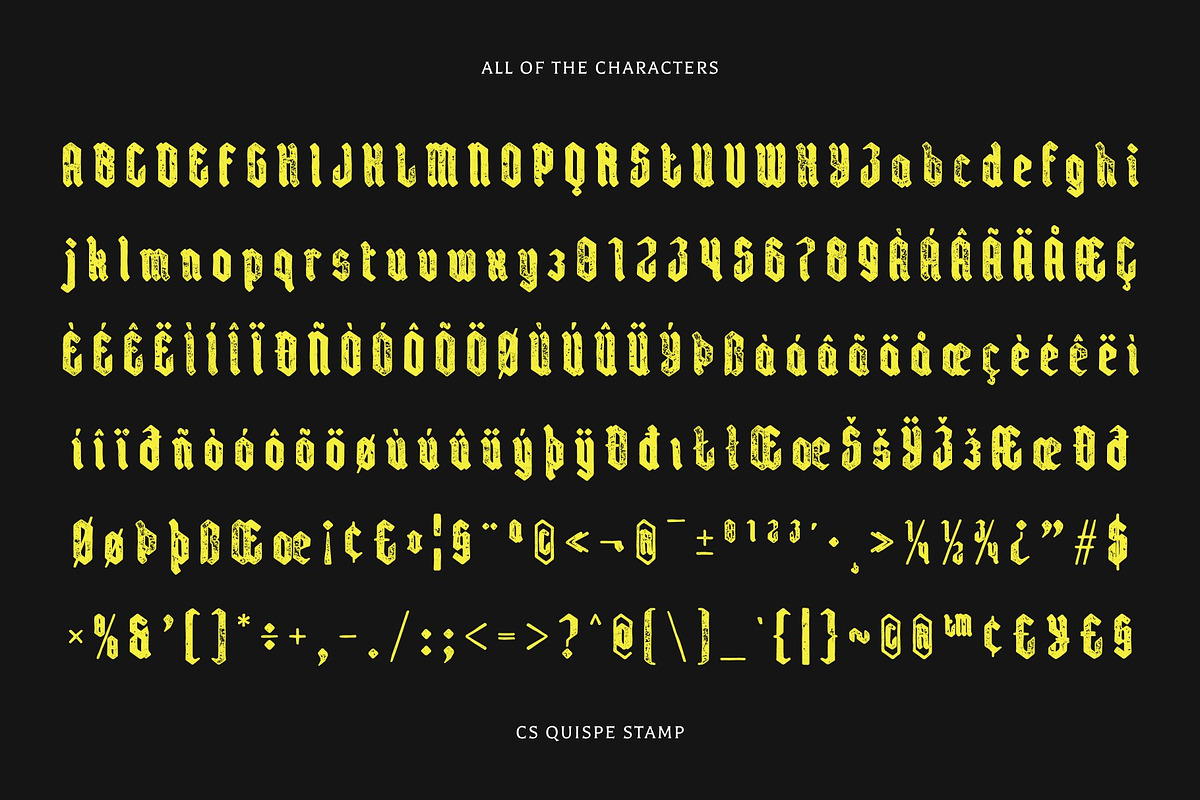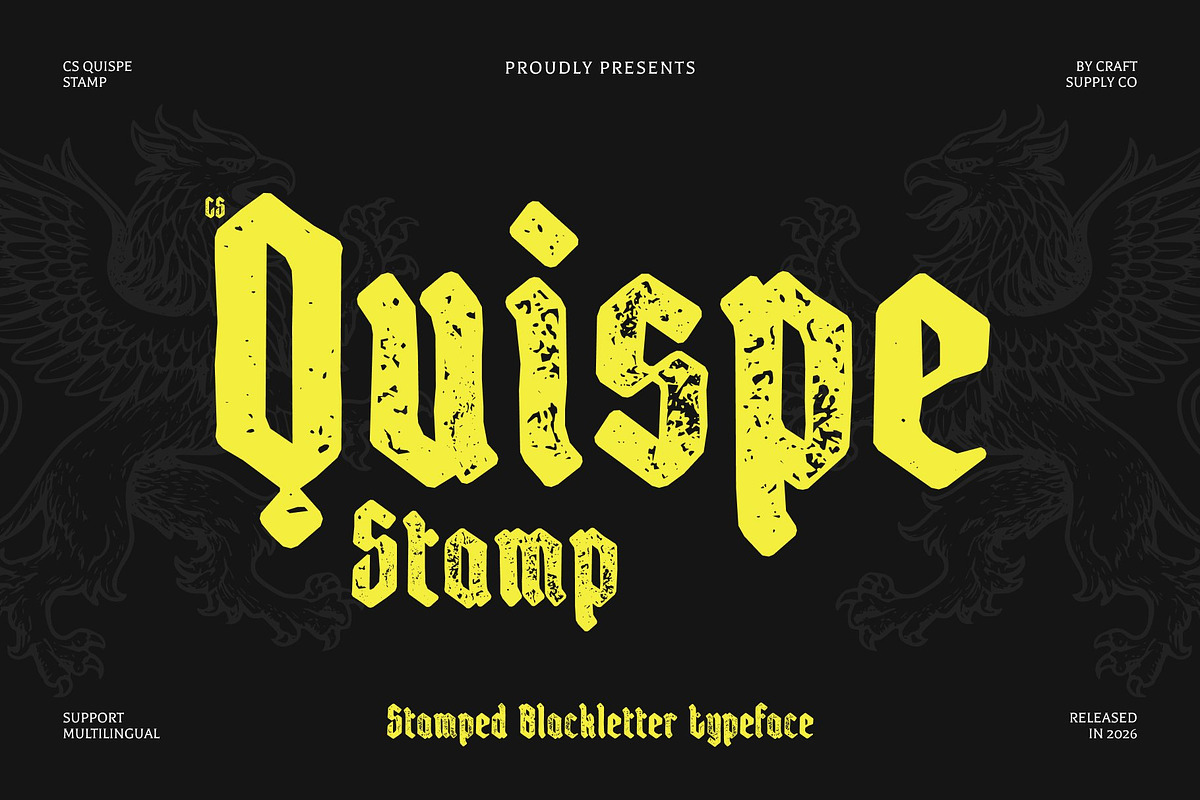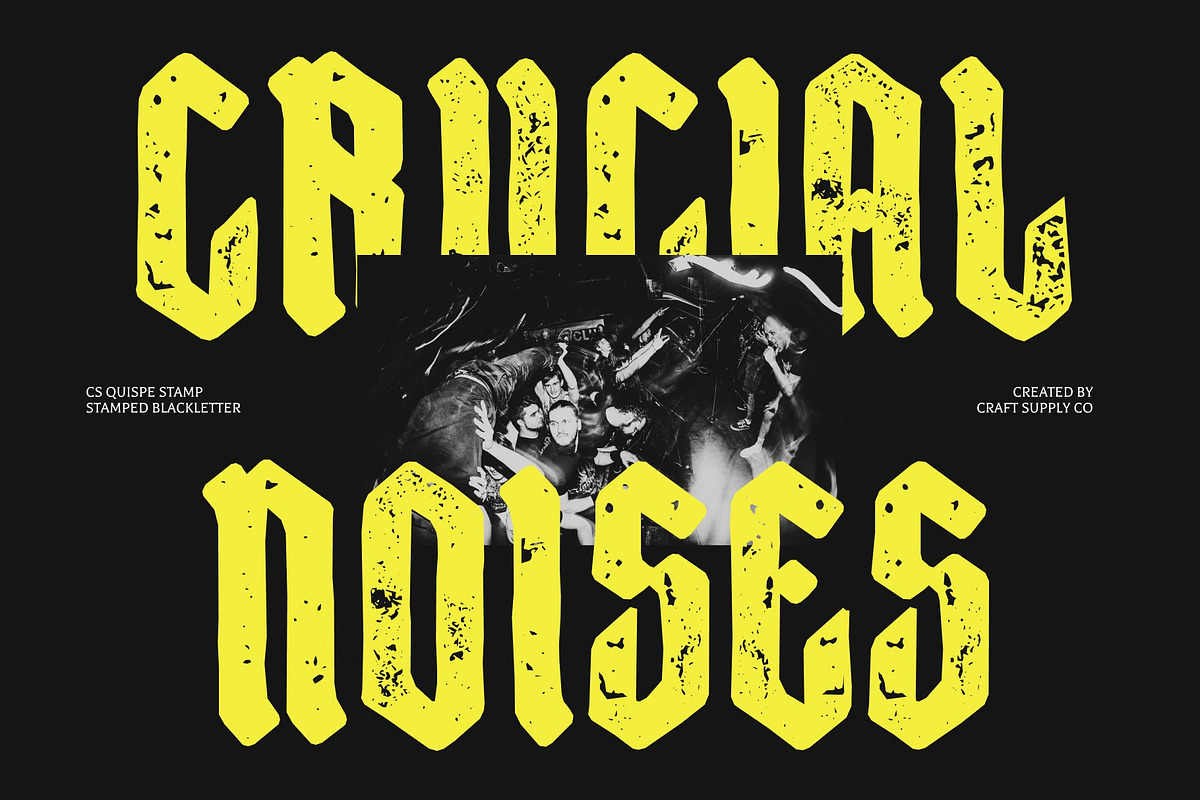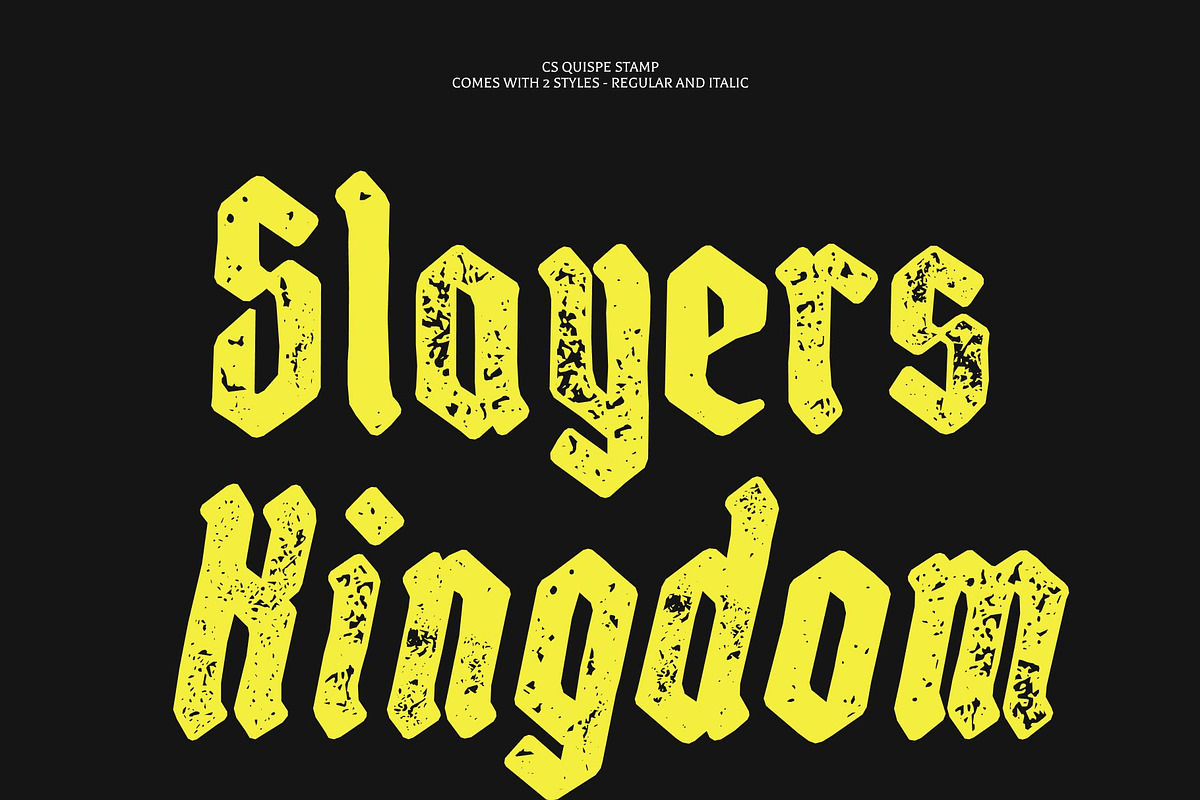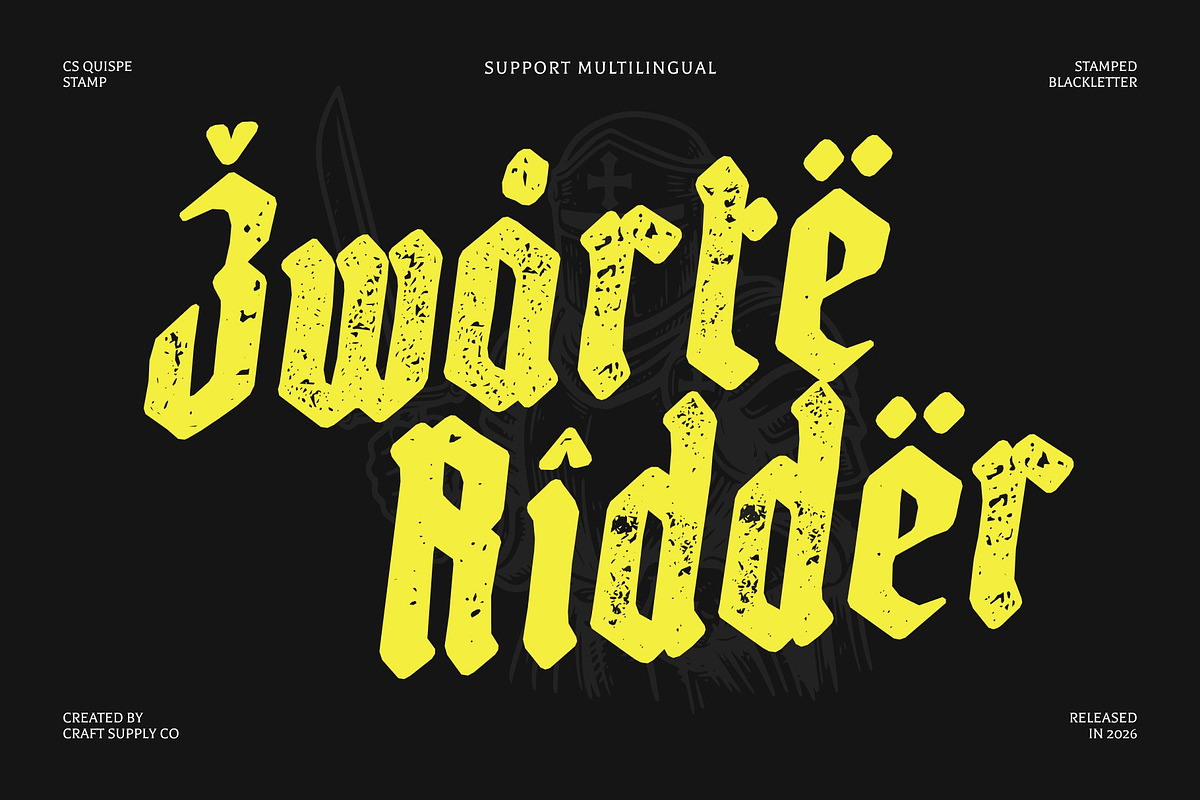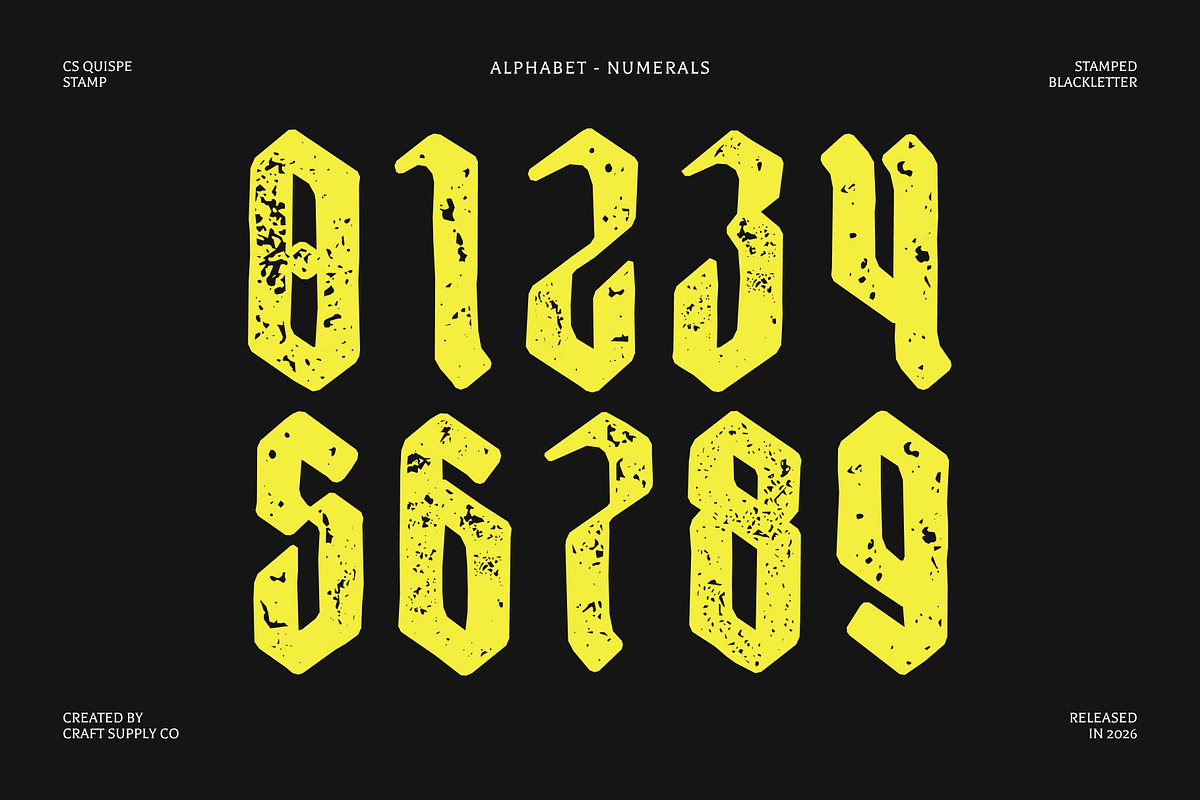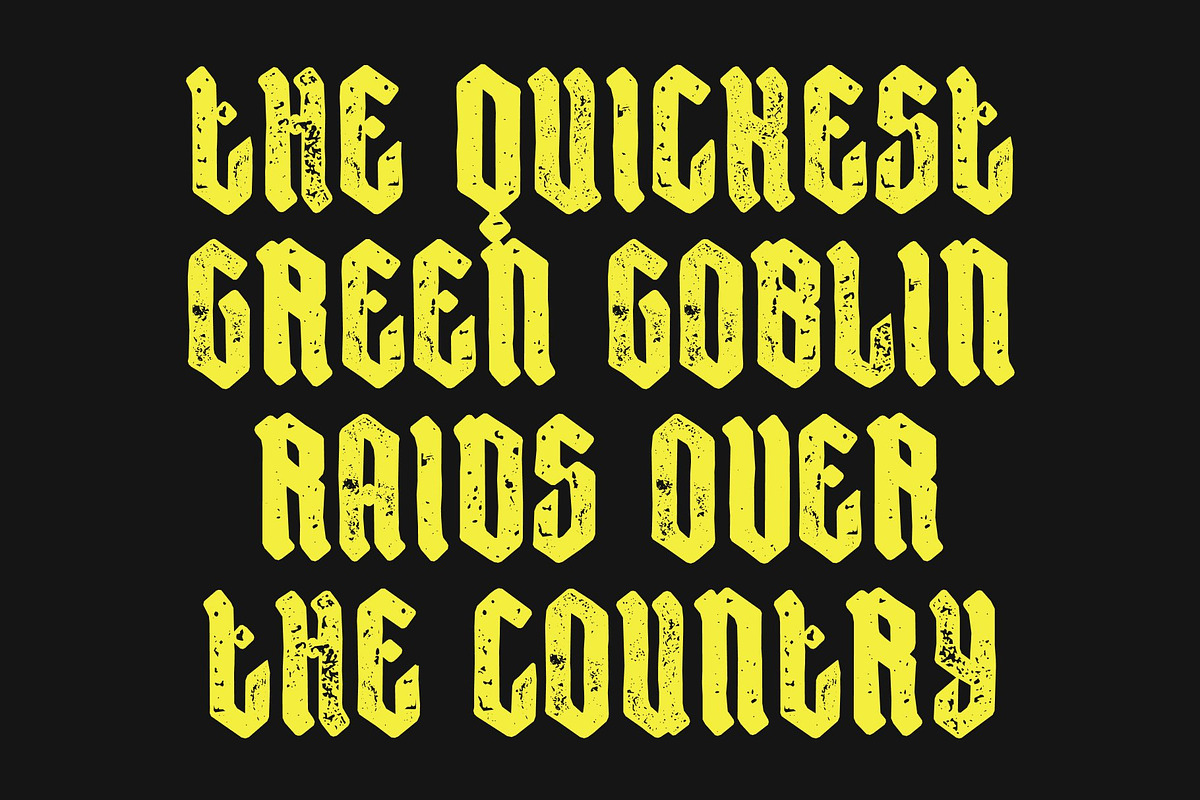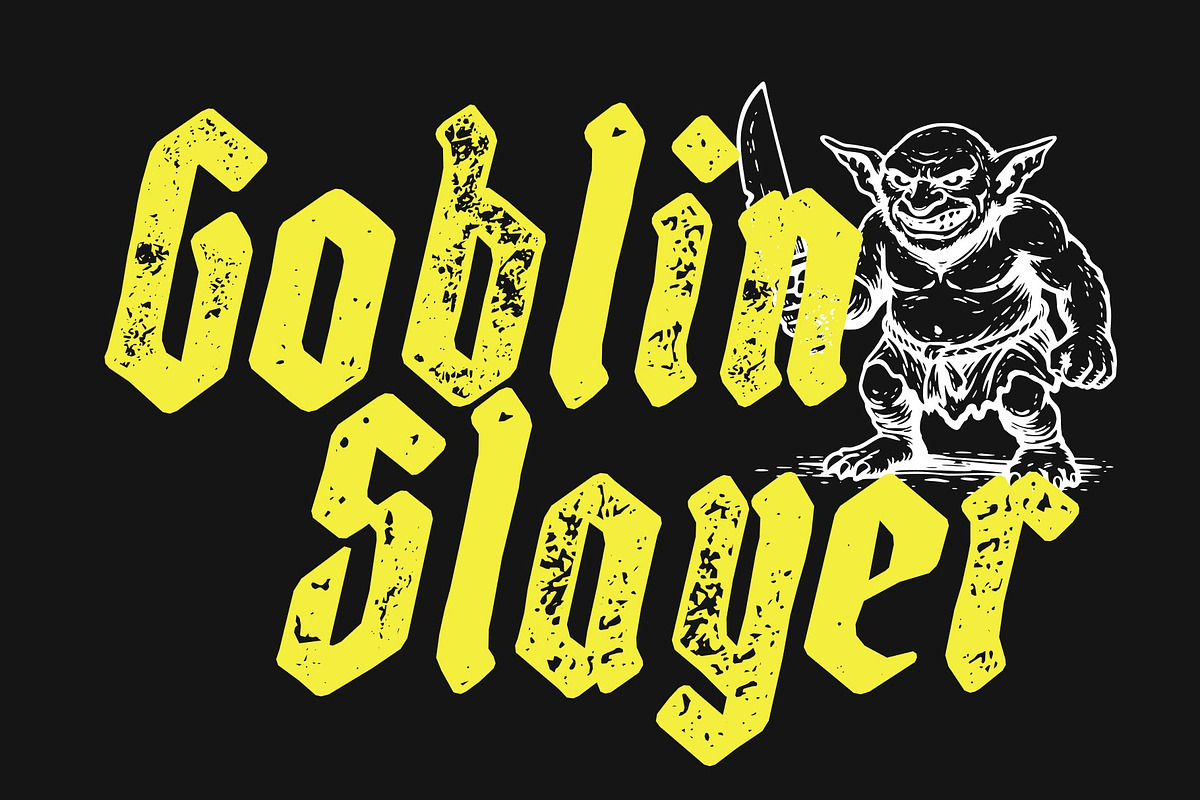
CS Quispe Stamp
CS Quispe Stamp – Blackletter Display Font: Where Gothic Drama Meets Vintage Artistry
Bold Dramatic Strokes with Mysterious Presence This is a Blackletter display font crafted with bold dramatic strokes and classic gothic inspired forms that radiate mystery and intensity. Its strong ornamental structure creates a powerful visual rhythm filled with heritage, elegance, and expressive character. Every letter carries a commanding presence, making the font perfect for designs that seek depth, drama, and timeless appeal.
Classic Gothic Style with Distinctive Character This font delivers a typographic voice that feels both historic and visually striking. The sharp curves and decorative details create a rich and artistic atmosphere while preserving readability and strong display impact. The result is a font full of personality, tradition, and bold sophistication.
Stamped Texture with Vintage Artistic Feel This font introduces a handcrafted finish inspired by traditional printing techniques. The slightly rough and organic texture adds artistic depth, vintage character, and authentic old-design charm to every letter. This textured detail enriches the dramatic Blackletter forms with warmth and expressive individuality.
Perfect for Posters, Branding, and Book Covers This font ideal for book covers, posters, branding, packaging, merchandise, and creative projects that seek a classic yet distinctive aesthetic. Its gothic-inspired forms and textured detailing make it perfect for logos, editorial titles, promotional graphics, and vintage-themed visual identities.
CS Quispe Stamp Regular
CS Quispe Stamp Italic